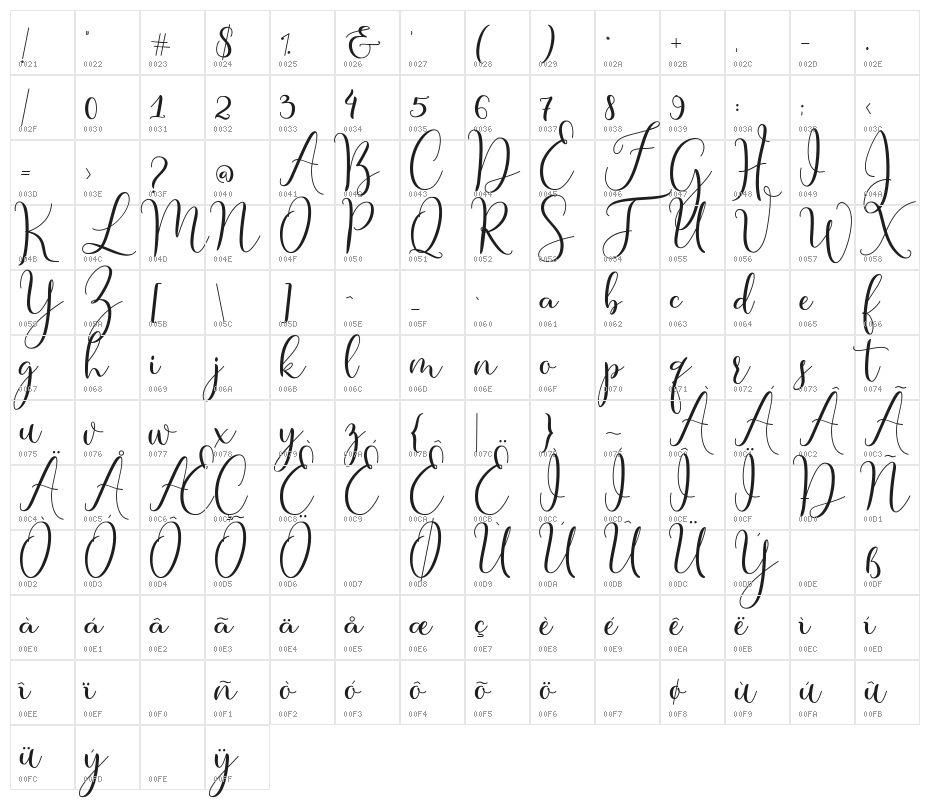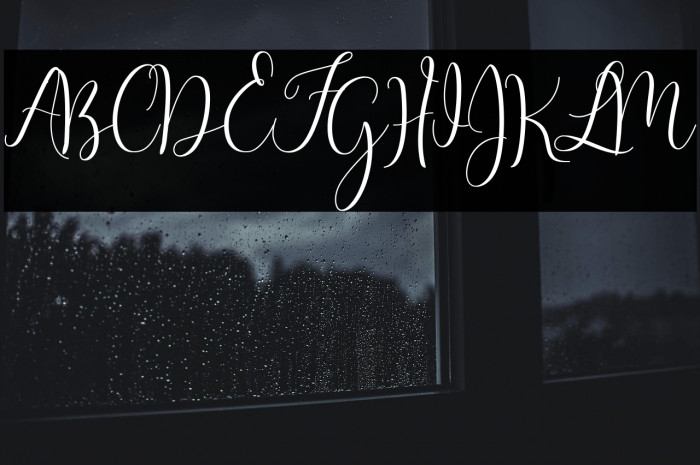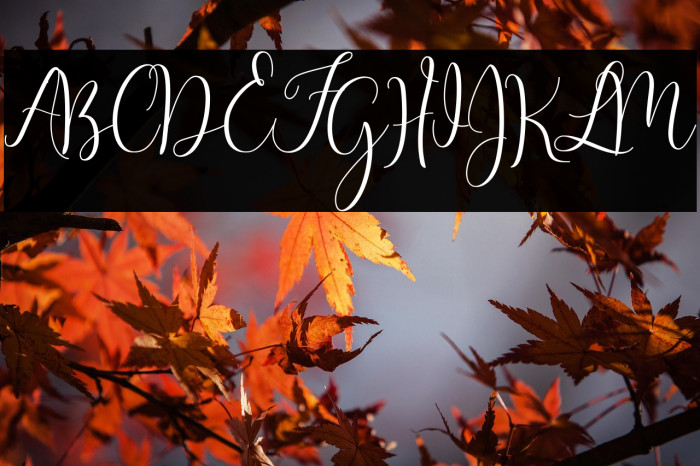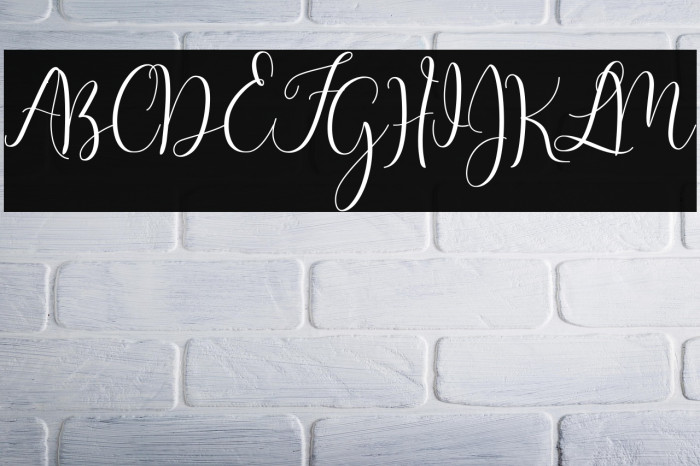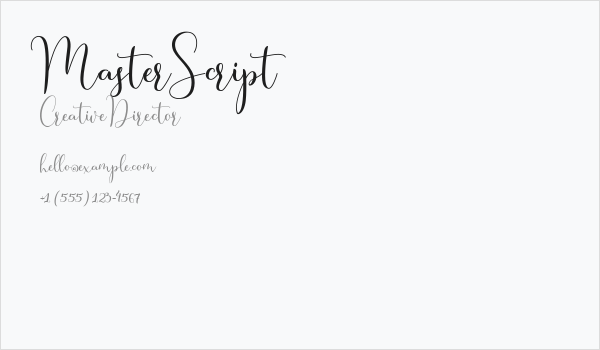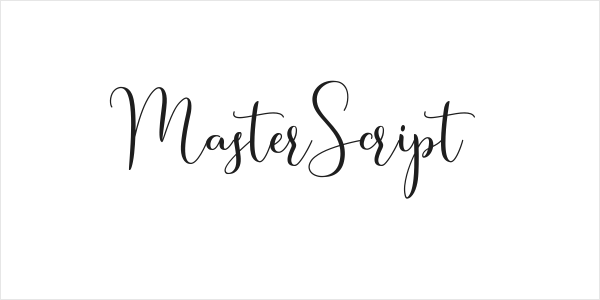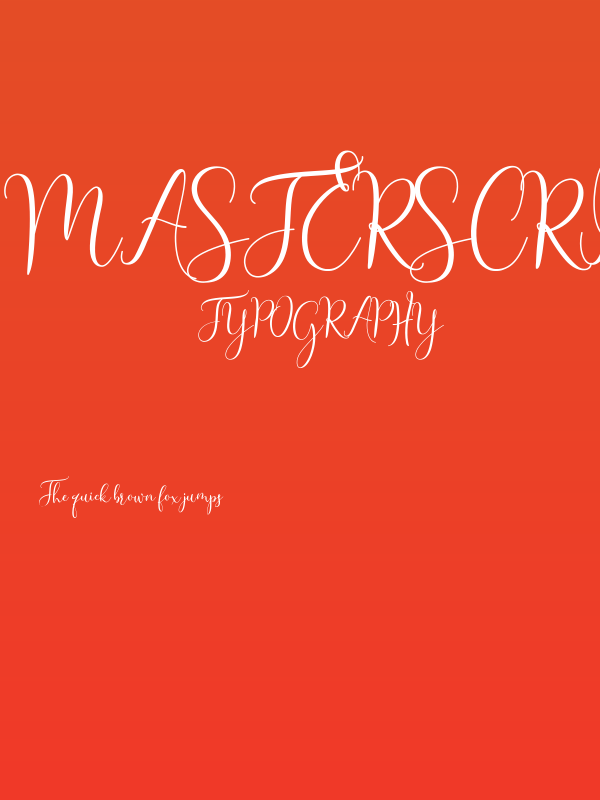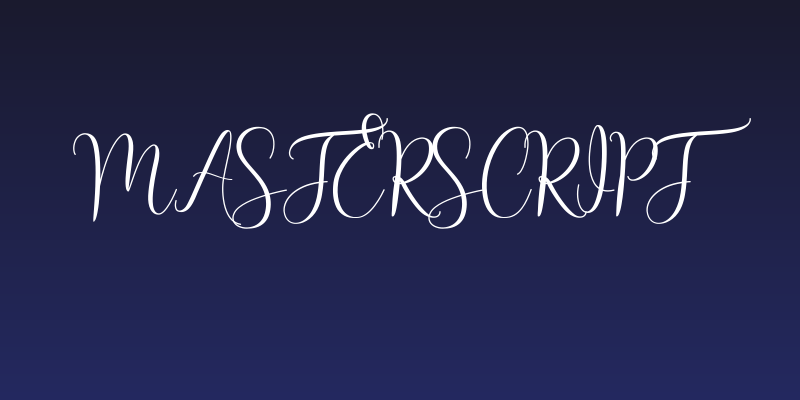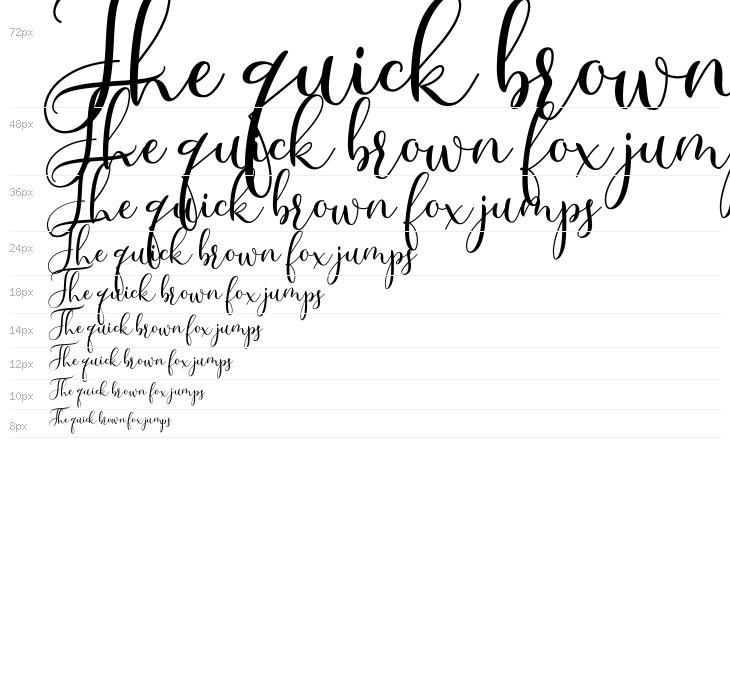
MasterScript Font
MasterScript Description
This font features an elegant and flowing script style, characterized by its graceful curves and loops. The uppercase letters are ornate, with sweeping ascenders and descenders that create a sense of movement and fluidity. The lowercase letters maintain a consistent style, offering a harmonious blend of thick and thin strokes that enhance its calligraphic appearance. Numbers are bold and slightly italicized, complementing the overall aesthetic. Special characters are designed with the same attention to detail, ensuring a cohesive look across all glyphs. This font exudes sophistication and is ideal for projects that require a touch of elegance and artistry.
| Overall Style | Elegant |
| Use Case | Logos, Invitations, Decorative text |
| Proposed Projects | Ideal for wedding invitations, elegant branding, high-end product packaging, and artistic posters. |